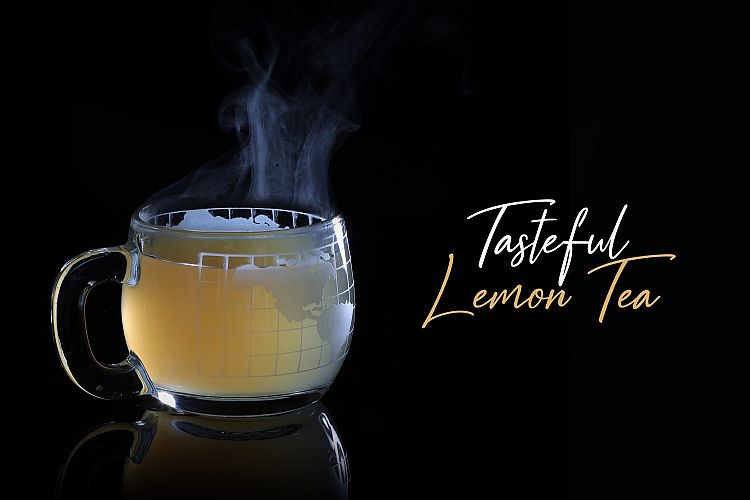
Black Pen Signature Demo Font
Hi designer! A signature milli pen font with classy handwriting style. Introducing Black Pen Font! It is designed by Suzuran. Black Pen Signature Font, a font that is very fresh and unique style handmade + bonus font, Night in Kansas for your project. Black Pen script is perfectly suited to logo, stationery, poster, apparel, branding, wedding invitation, card, tagline, layout design, and much more !!.